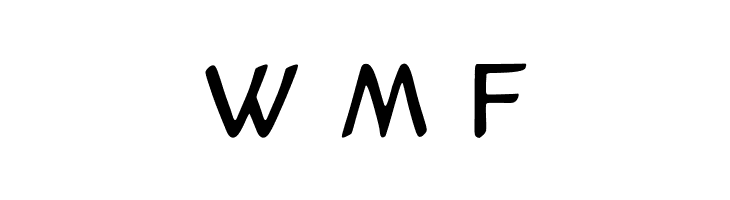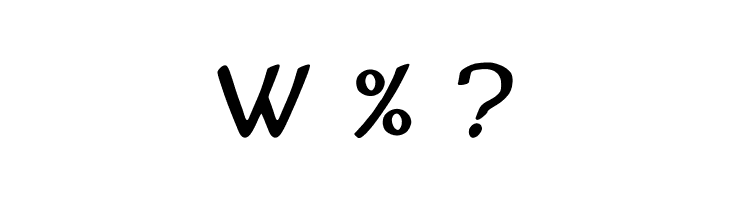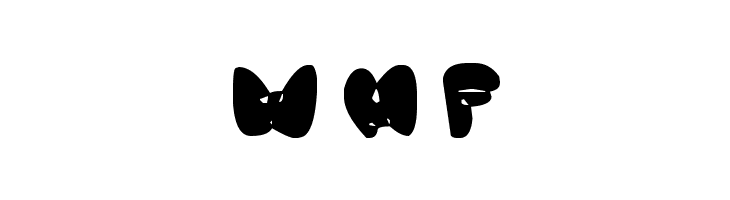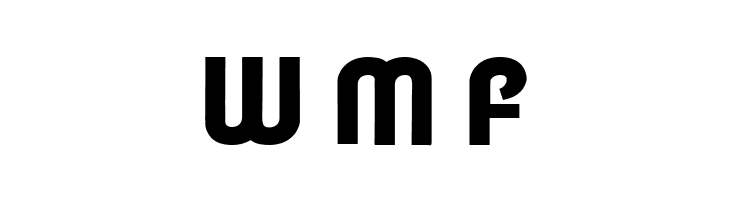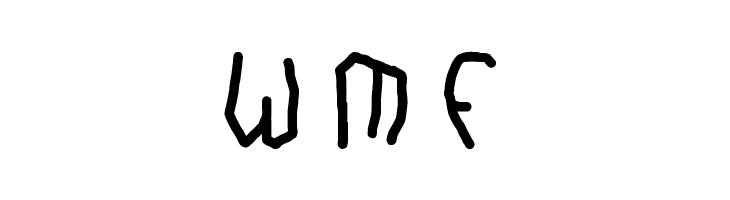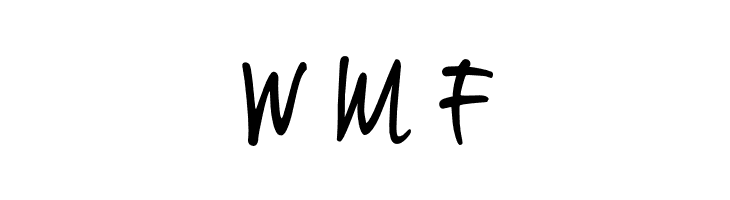
( Fonts by Barry Bujol - theoriginal19.blogspot.com )
A bold, playful font with rounded and angular elements, offering a modern yet retro charm.
( Fonts by Amazingmax - Maxim Avdeev )
A playful, rounded font with bold, smooth characters and a friendly style.
( Fonts by Amazingmax - Maxim Avdeev )
A playful, rounded font with bold, smooth curves and a friendly appearance.
( Fonts by Thais Trizoli - www.behance.net/thaistrizoli )
A bold, rounded font with a playful and modern style.
( Fonts by Press Gang Studios - Andeh Pinkard - www.pressgang-studios.com )
A playful, hand-drawn font with wavy lines and a quirky, energetic style.
A bold, playful handwritten font with thick strokes and a casual feel.